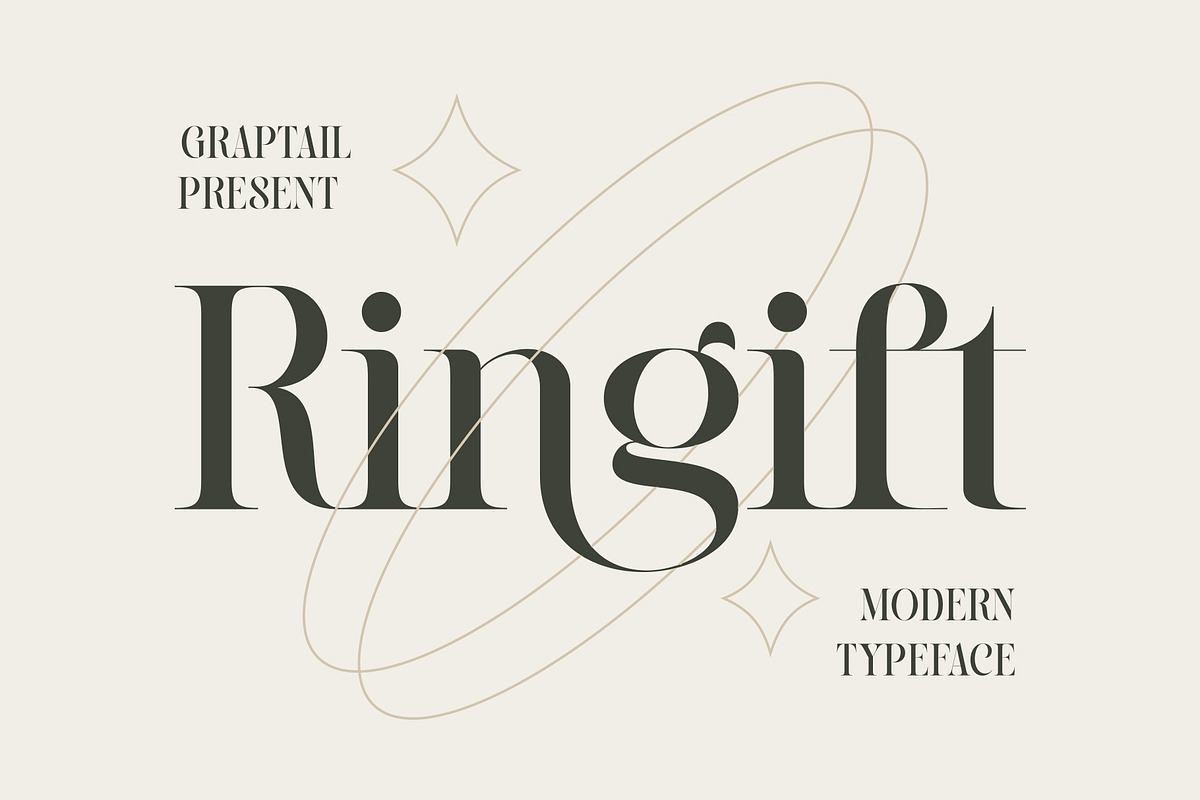
The Ringift - A Modern Serif Font Free Download is a sophisticated and contemporary typeface that combines the timeless elegance of serifs with a fresh, modern twist. Perfect for upscale branding, editorial design, luxury product packaging, websites, and social media graphics, this font brings a polished and professional edge to any project.
With its clean lines, strong presence, and stylish serifs, Ringift offers both legibility and character. It includes uppercase and lowercase letters, numbers, punctuation, and multilingual support, ensuring versatility and high-quality results in both digital and print designs.